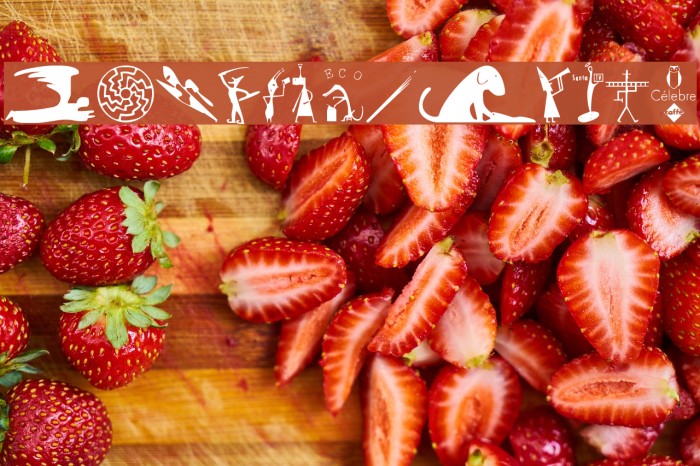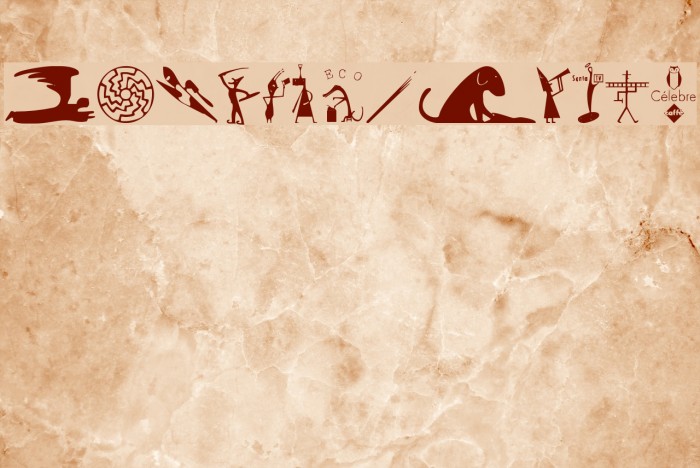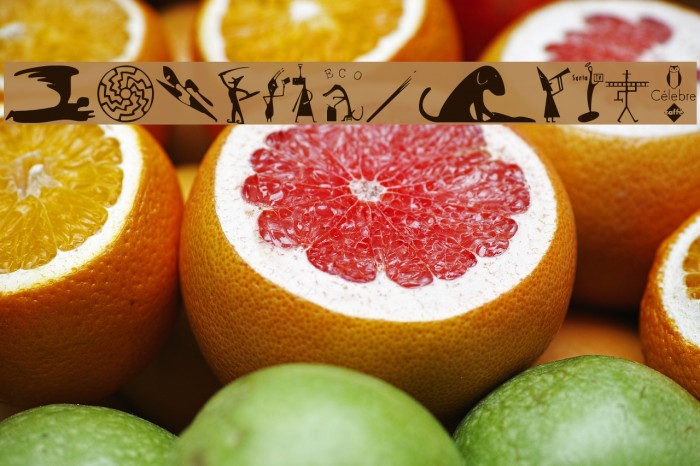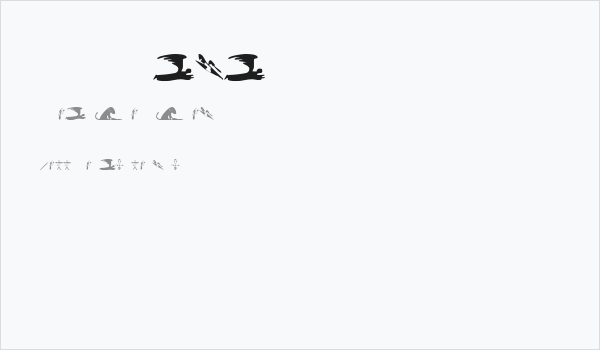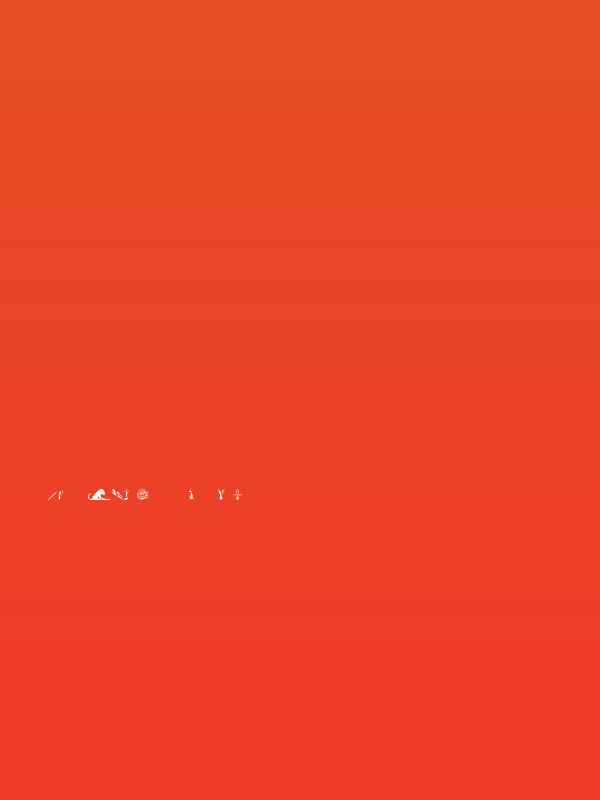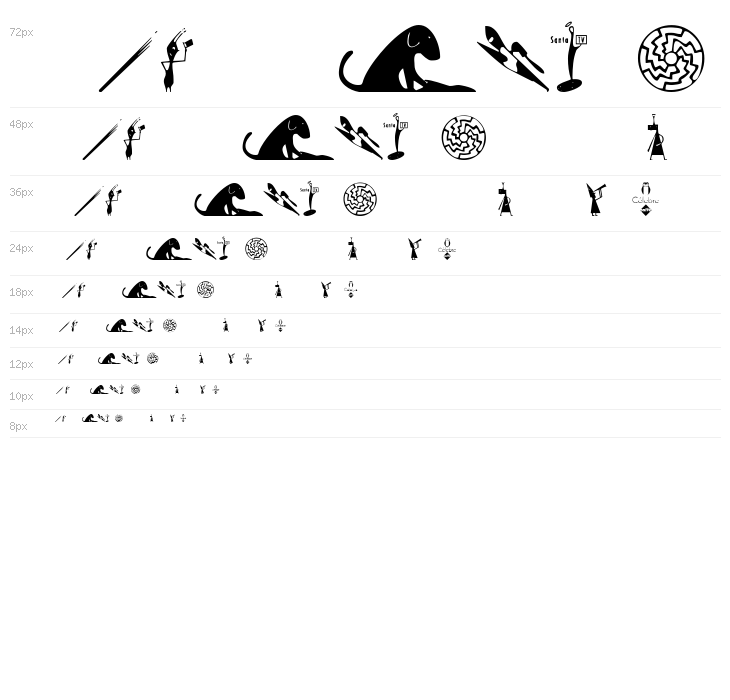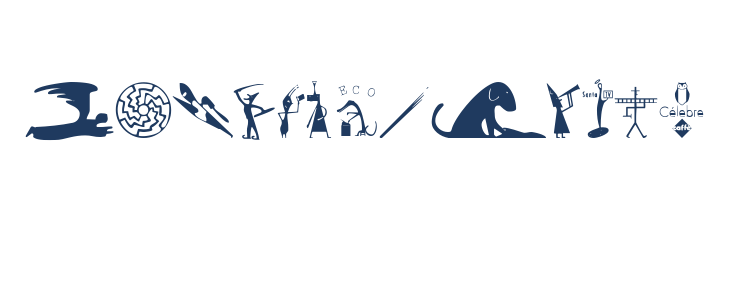
Guto Lacaz PW Font
Guto Lacaz PW Description
This font is an artistic and whimsical collection of characters, each represented by unique and playful illustrations. The characters are not traditional letters but rather creative depictions that resemble abstract art or pictograms. Each character is distinct, featuring elements like animals, abstract shapes, and imaginative figures, making it a highly decorative and unconventional font. The style is bold and expressive, with a strong emphasis on visual storytelling rather than textual clarity. This font is ideal for projects that require a creative and artistic touch, where the visual impact is more important than readability.
| Use Case | Logos, Posters, Art Projects |
| Proposed Projects | Ideal for creative projects such as art installations, posters, album covers, or any design work that benefits from a playful and artistic flair. |